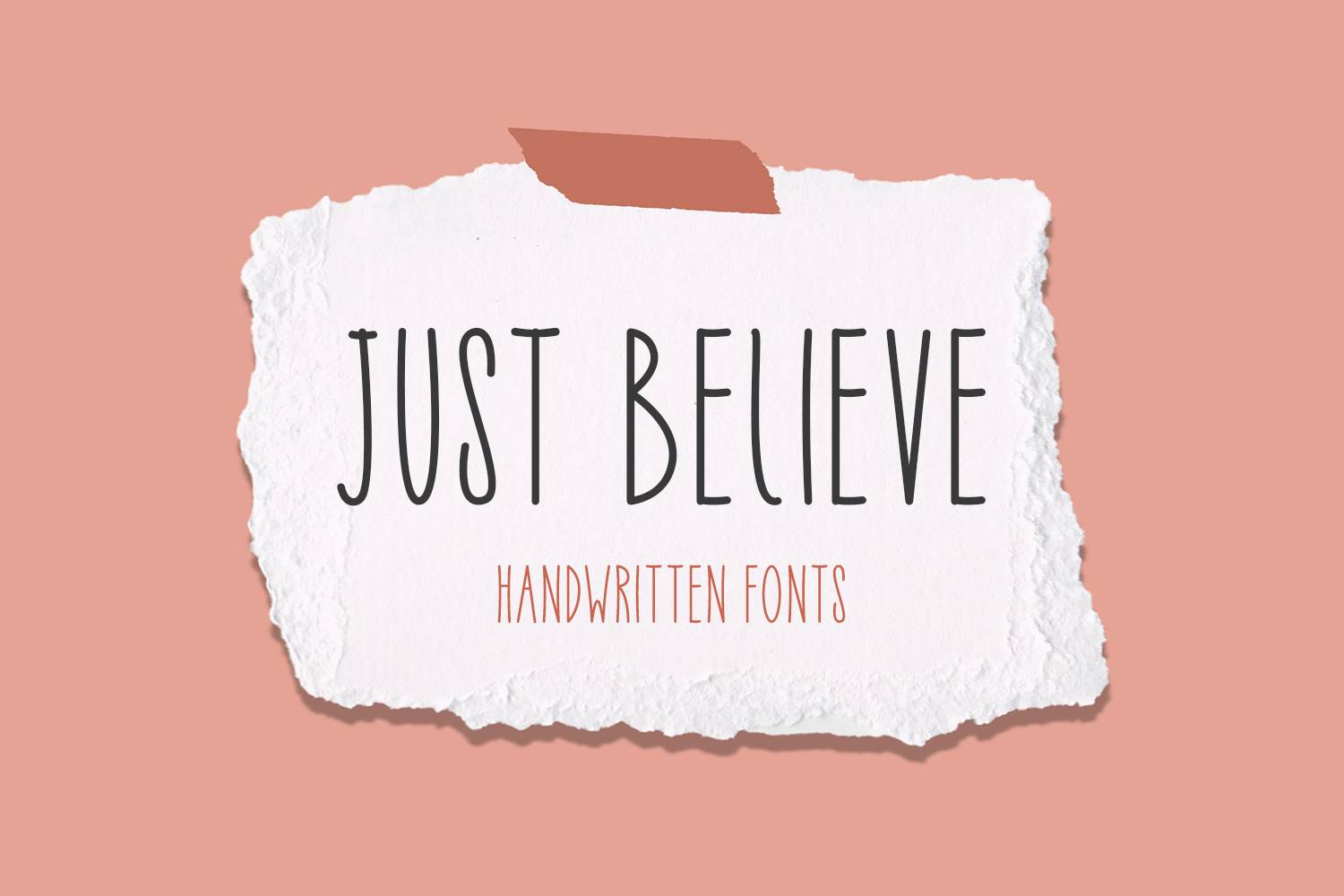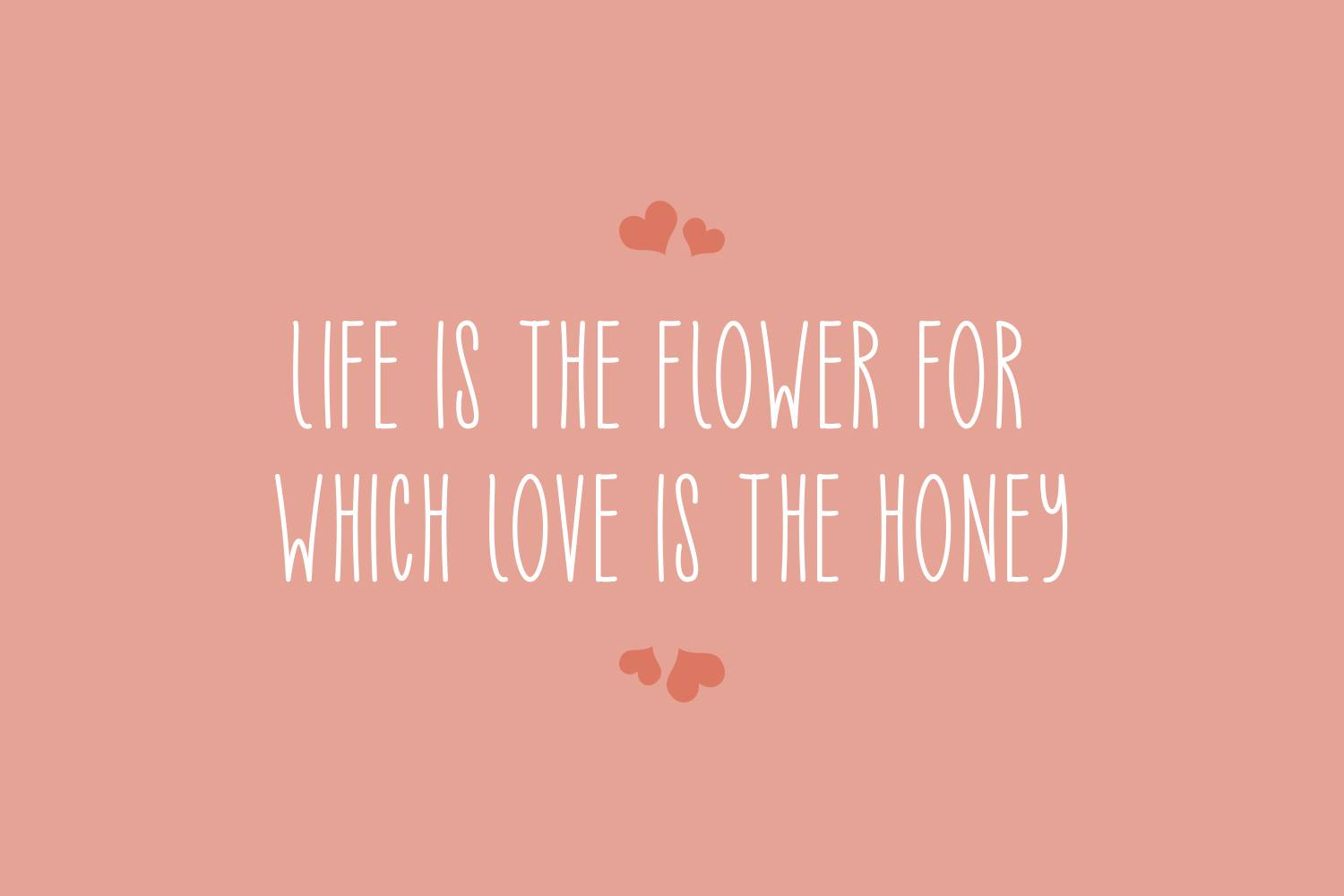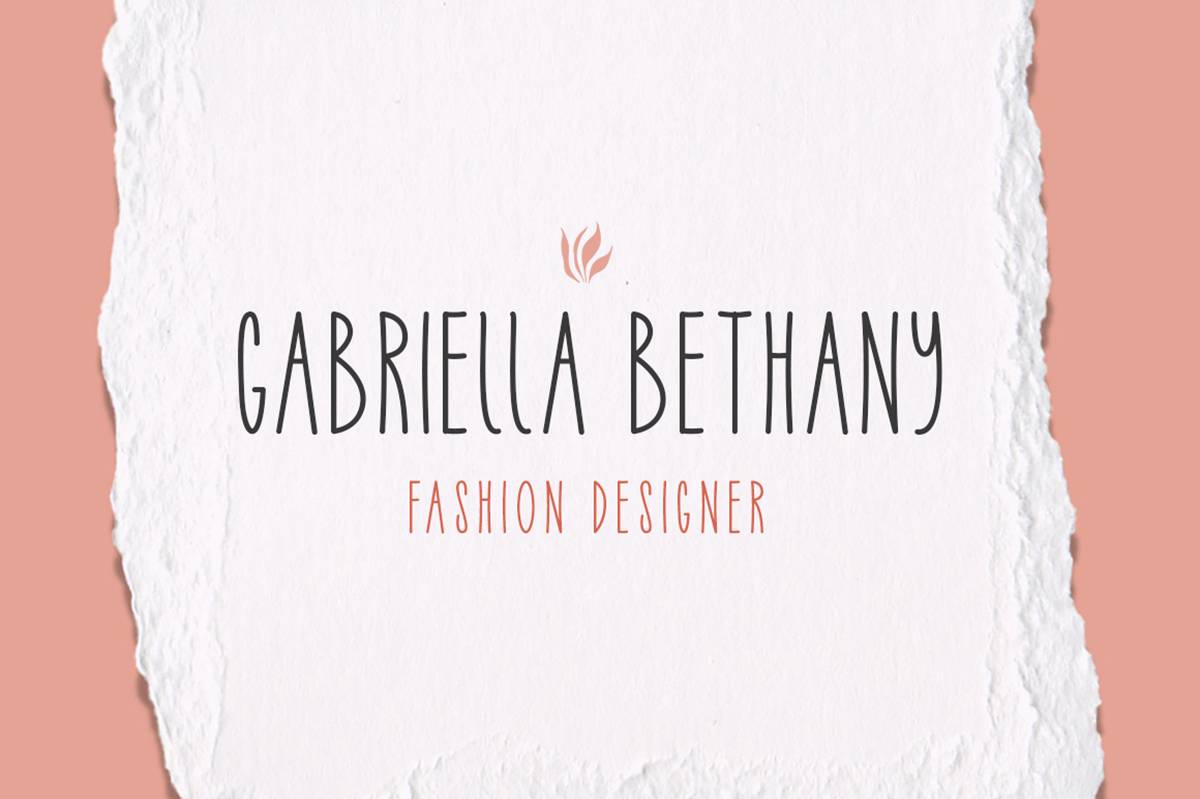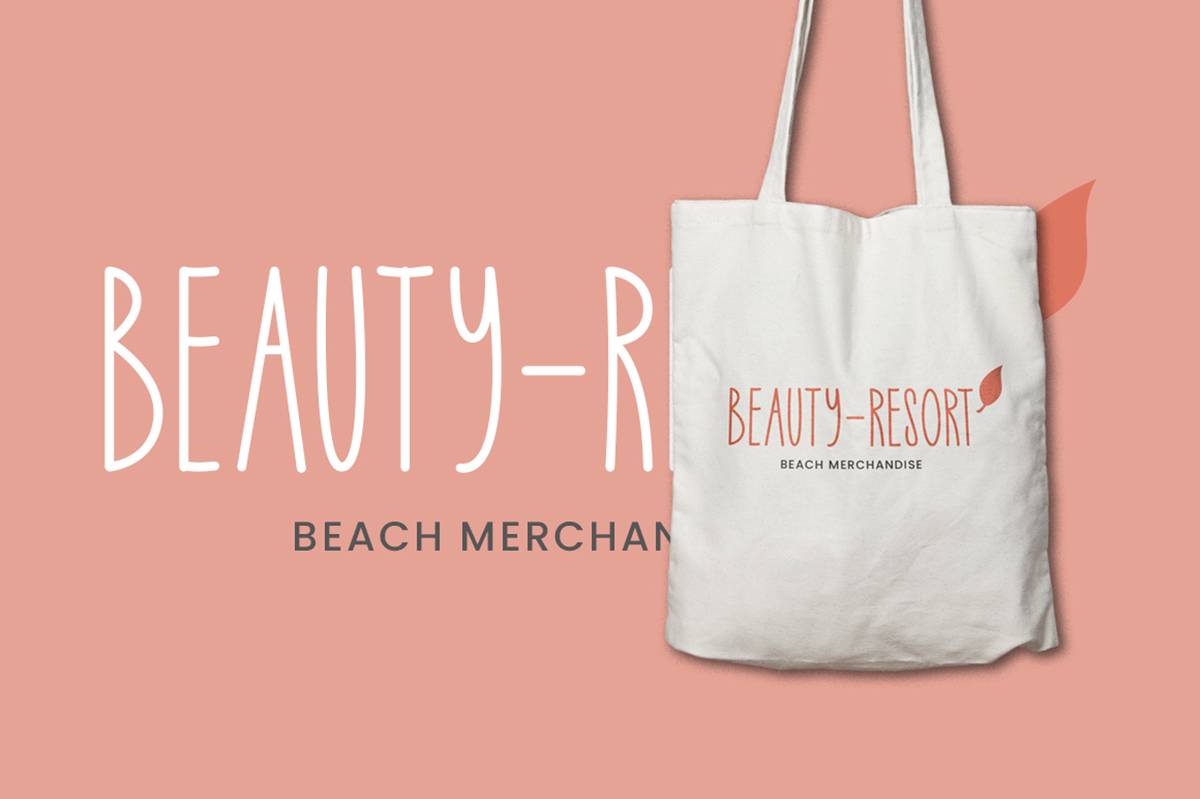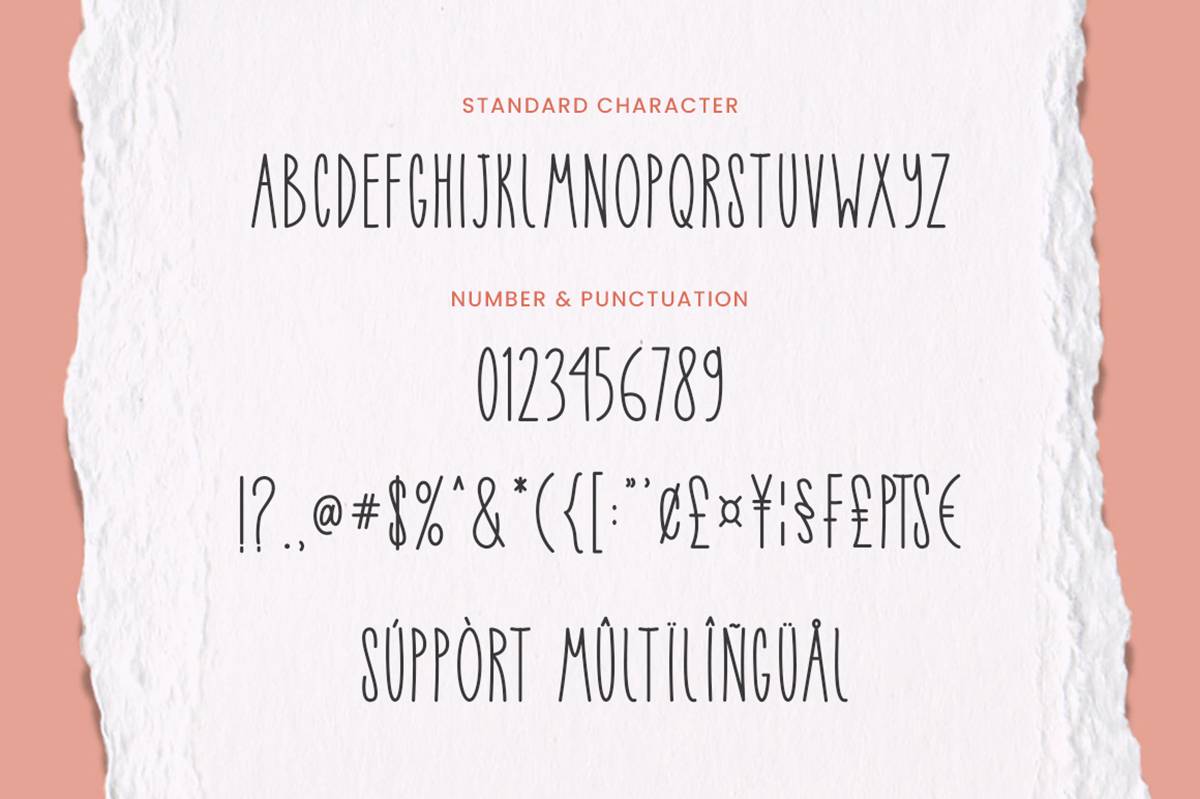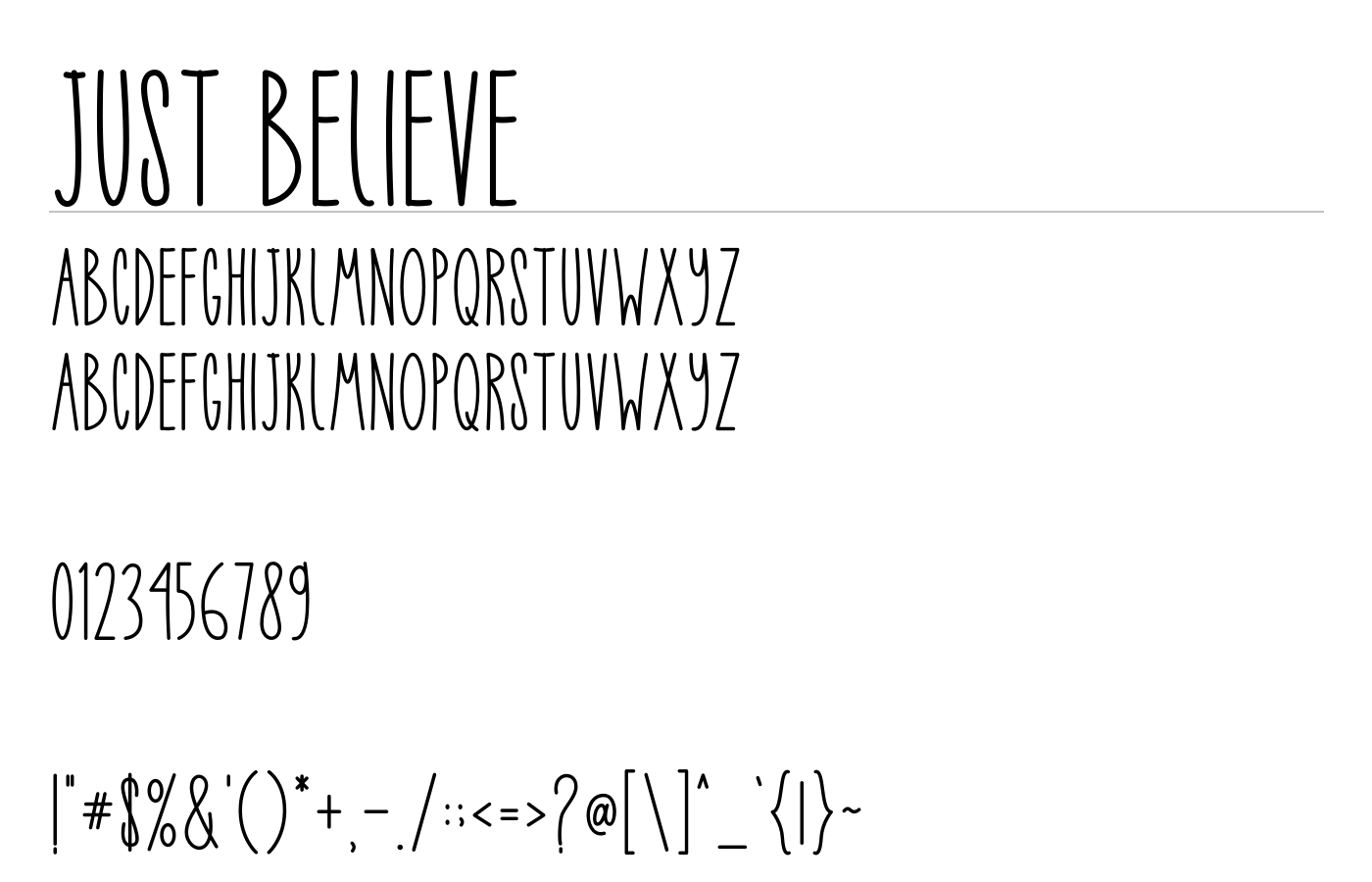
Just Believe is a tall, narrow sans serif font with a playful, hand-drawn style that feels casual and friendly. Its thin strokes and consistent weight give it a clean yet whimsical appearance, making it perfect for creative projects, informal branding, and headlines that need an approachable, uplifting vibe. This font shines in designs seeking a personal and charming touch without sacrificing readability.
Just Believe Font
About Just Believe Font
| Font family | Just Believe Font |